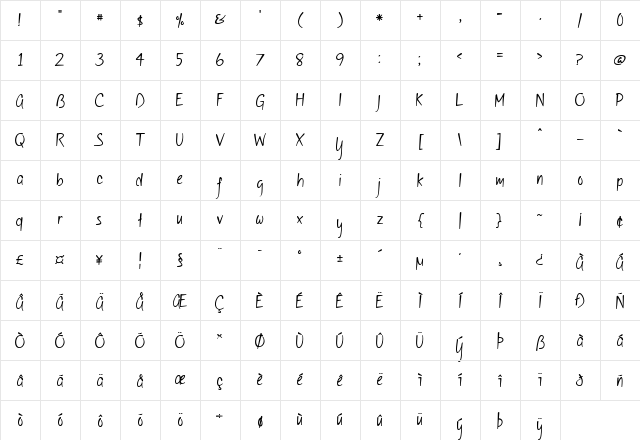
Complete Of Wildflowers and Wings Regular glyph index. Displaying only characters natively supported by Of Wildflowers and Wings Regular font.
Of Wildflowers and Wings is a composed and adaptable typeface that performs quietly and consistently across a wide range of design contexts.